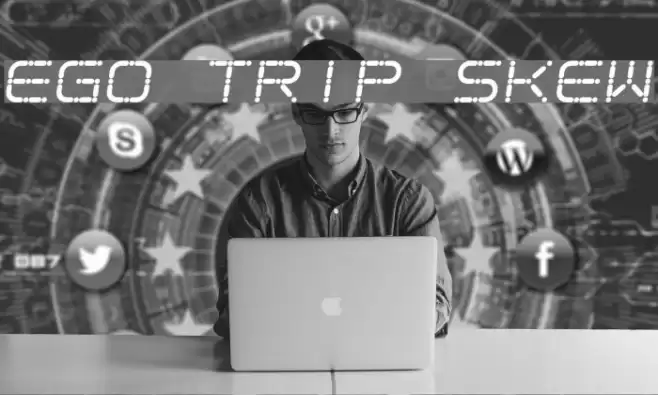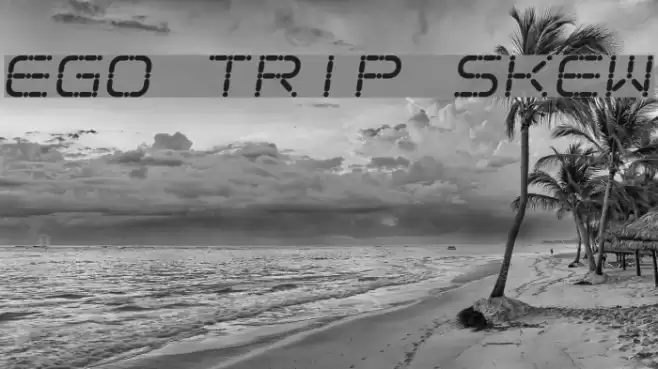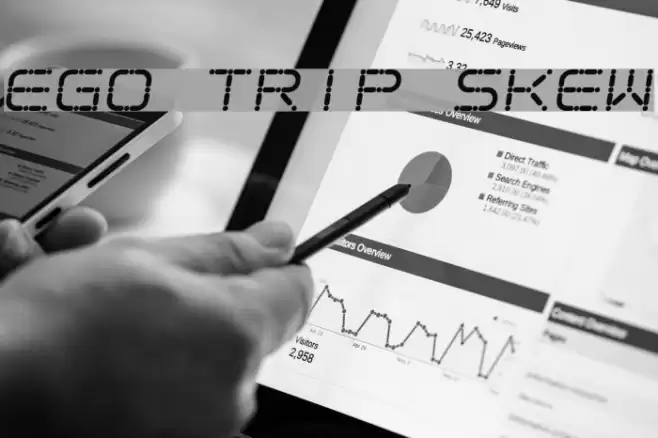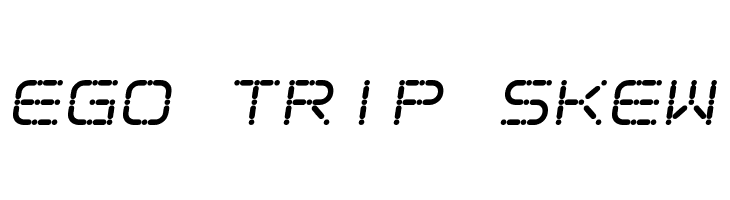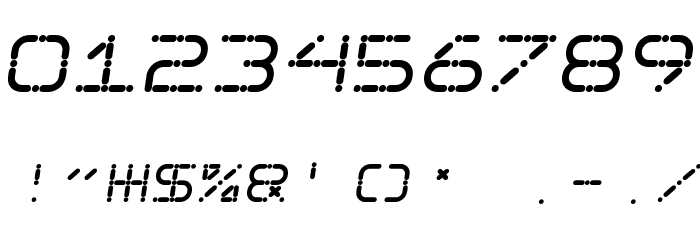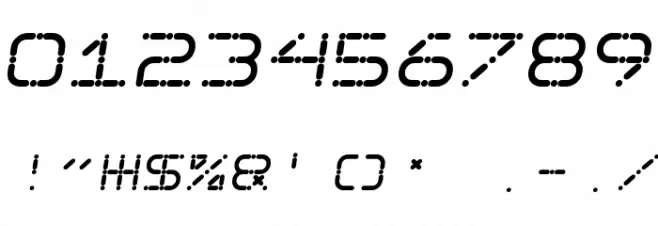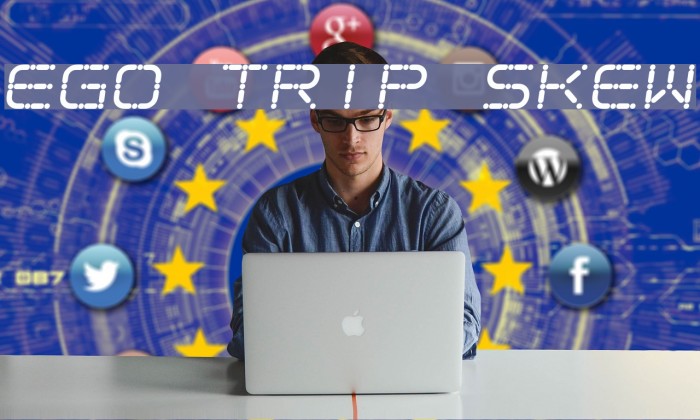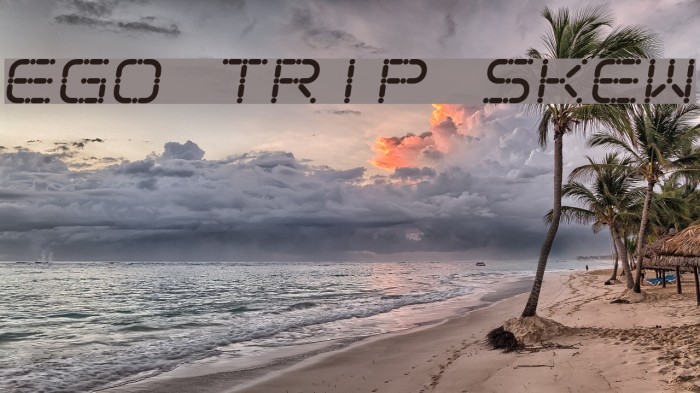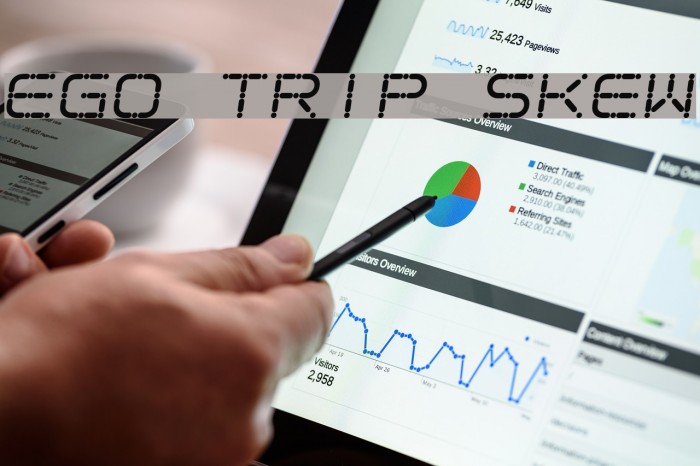
Ego trip Skew Font
Ego trip Skew Description
This font features a unique, dotted design that gives it a futuristic and digital appearance. Each character is composed of a series of evenly spaced dots, creating a cohesive and consistent look across all letters and numbers. The style is slightly slanted, adding a dynamic and forward-moving feel. The uppercase and lowercase letters maintain a uniform height, enhancing readability while preserving the distinct dotted aesthetic. The numbers and special characters follow the same design principles, ensuring a harmonious overall appearance. This font is ideal for projects that require a modern, tech-inspired look.
A futuristic, dotted font with a slanted, digital style from Capitals fonts.
- Proposed Projects: Ideal for tech-related branding, digital interfaces, futuristic posters, and modern art projects.
- Use Case: Logos, Headlines, Digital interfaces